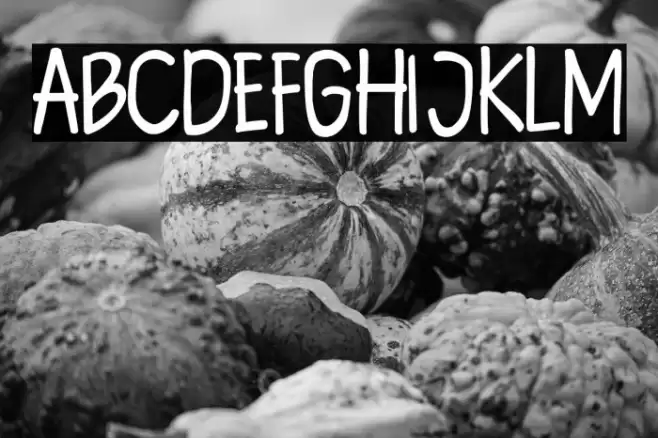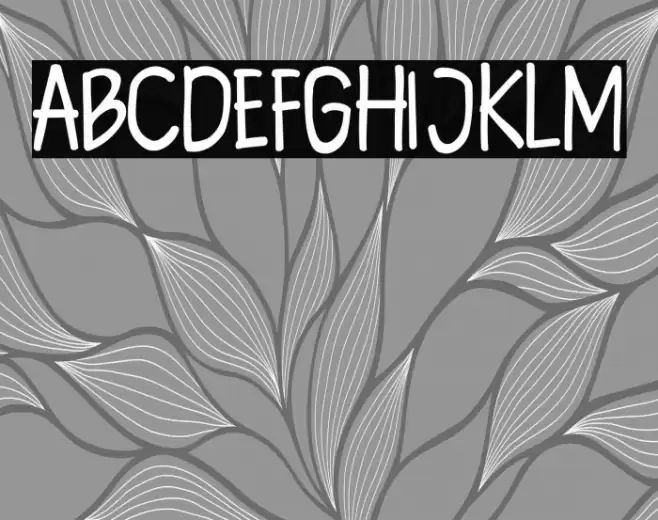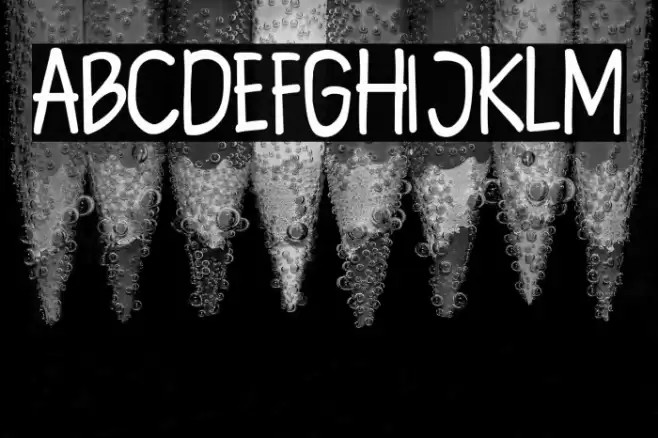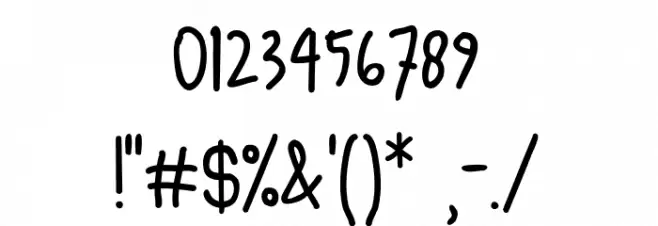
SangJutawan Font
SangJutawan Description
This font features a playful and casual handwritten style, characterized by its smooth, rounded edges and slightly irregular letterforms. The uppercase letters are bold and prominent, while the lowercase letters maintain a consistent flow, adding to the font's approachable and friendly appearance. The numbers and special characters are crafted with the same playful touch, ensuring uniformity across all glyphs. This font's informal style makes it ideal for projects that require a personal or whimsical touch, such as children's books, greeting cards, or creative branding.
A playful, handwritten font with smooth, rounded edges and a casual style from Uncategorized fonts.
- Font: SangJutawan
- Proposed Projects: Ideal for children's books, greeting cards, creative branding, and informal invitations.
- Overall Style: Casual, Playful
- Use Case: Headlines, Informal text, Creative projects